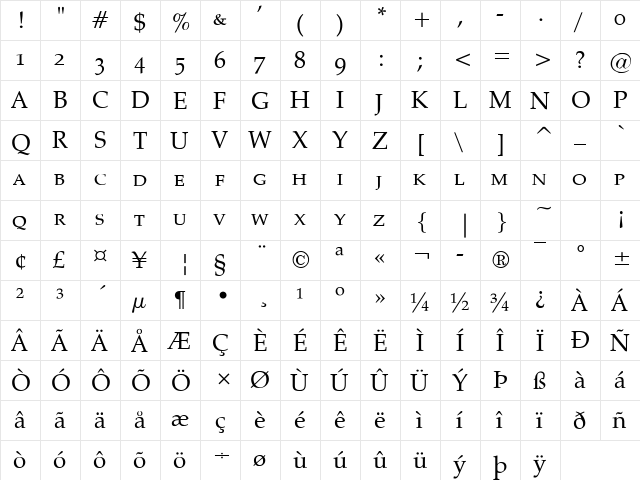
PalazzoSmall Caps Regular
Design Context for PalazzoSmall Caps Typeface
PalazzoSmall Caps offers clean, dependable letterforms without strong stylistic allegiance, making it a practical choice for designers who need flexibility.
Pro Tip: Use PalazzoSmall Caps in both headline and body roles to test its range before committing to a single application.